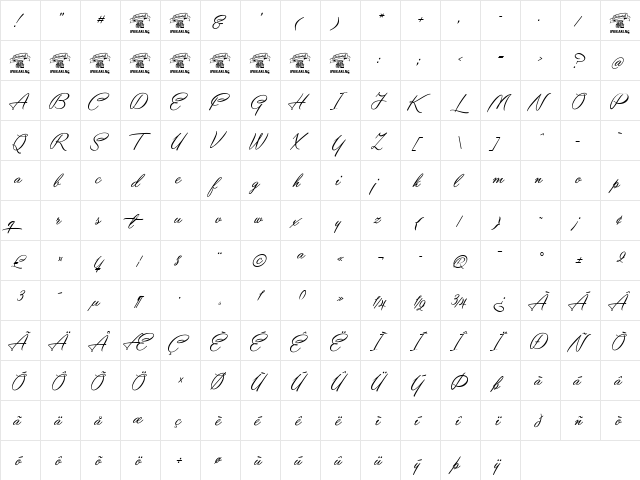
Yaquote Script Personal Use Regular
Design Context for Yaquote Script Personal Use Typeface
Yaquote Script Personal Use flows with the natural rhythm of handwritten lettering, making it ideal for designs that call for warmth and personal expression.
Font Pairing: Combine Yaquote Script Personal Use with a simple geometric sans for maximum contrast — the tension between flowing curves and clean structure is a classic typographic pairing.
Pro Tip: Pair Yaquote Script Personal Use with a clean sans-serif for supporting text. The contrast between fluid script and geometric structure creates an elegant typographic hierarchy.